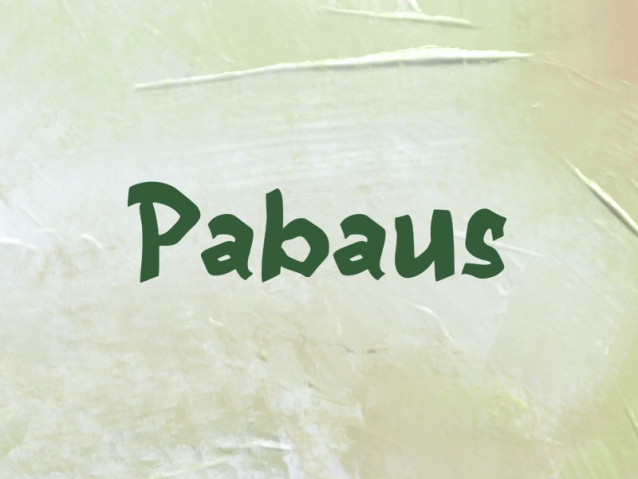
Pabaus Font
Pabaus Font is a simple and modern display font suitable for quotes, logos, headings, titles, and many more. Use it on any of your creative projects, and your designs will become outstanding!